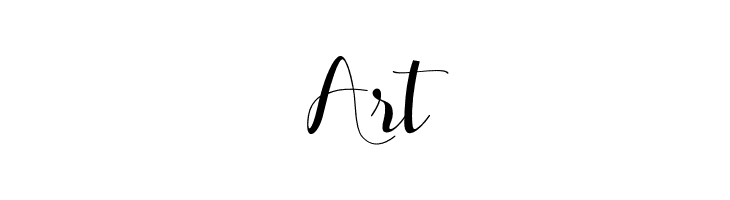
( Syahputra - creativemarket.com/Bexxtype )
A flowing, cursive font with elegant loops and swashes.
( Syahputra - creativemarket.com/Bexxtype )
An elegant and flowing script font with intricate loops and swashes.
( Syahputra - creativemarket.com/Bexxtype )
A graceful, elegant script font with flowing, interconnected letters.
( Syahputra - creativemarket.com/Bexxtype )
An elegant script font with intricate loops and flowing design, perfect for luxury branding.
( Syahputra - creativemarket.com/Bexxtype )
An elegant script font with flowing, cursive letterforms and refined curves.
( Syahputra - creativemarket.com/Bexxtype )
A graceful script font with flowing, interconnected characters and elegant flourishes.
( Syahputra - creativemarket.com/Bexxtype )
An elegant, flowing script font with a cursive, handwritten style.
( Syahputra - creativemarket.com/Bexxtype )
A graceful and flowing script font with elegant cursive strokes.
( Tama Putra - be.net/tmptr )
A fluid, cursive script font with elegant strokes and a natural handwriting style.
( Tama Putra - be.net/tmptr )
An elegant, cursive script font with flowing, ornate characters.